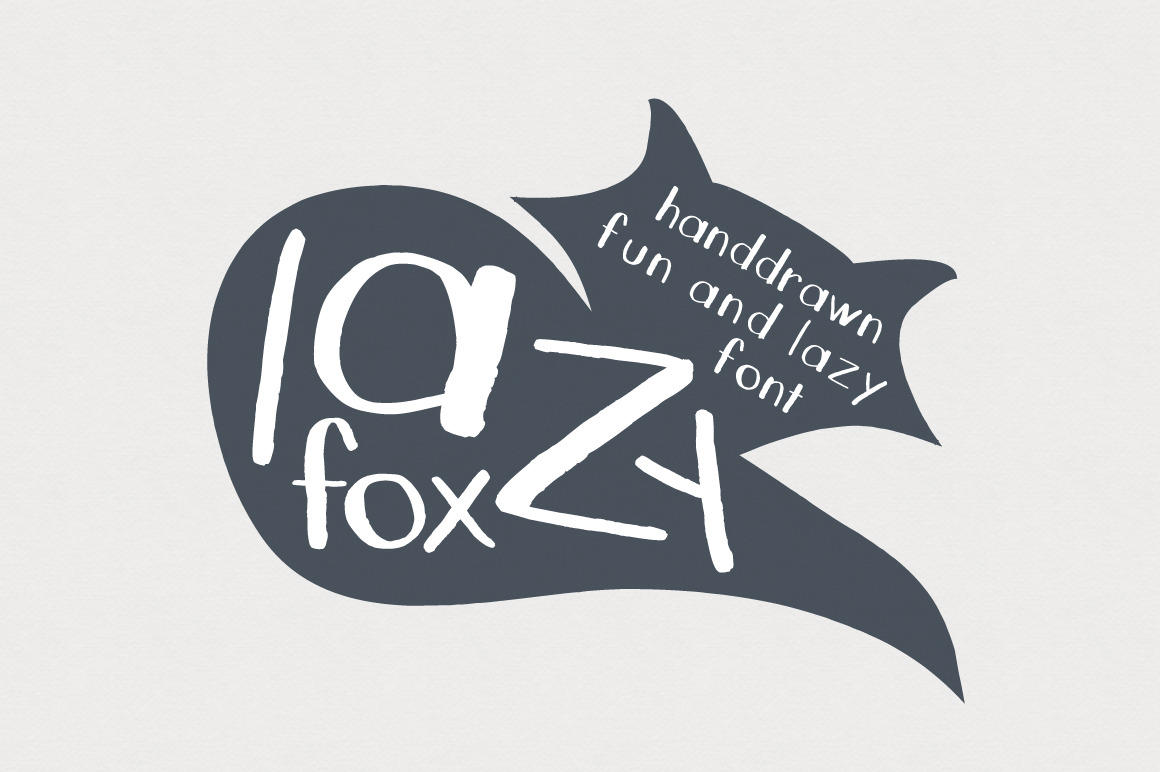
LazyFox Hand Drawn Font
A hand drawn font with that imperfect look that you love! Great as a display font or for handwritten texts.
- Uppercase and lowercase, numbers and puntuaction.